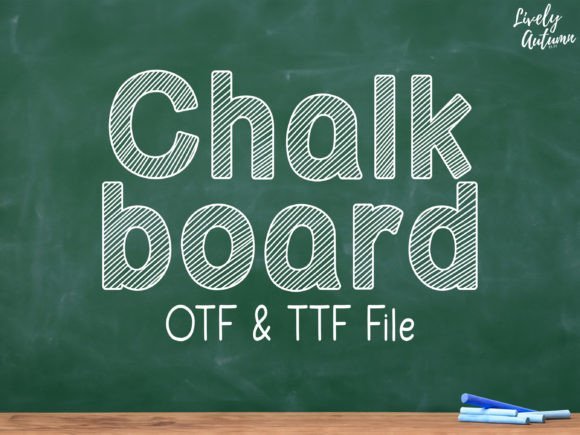
The Chalkboard Font: Bringing a Touch of Whimsy to Your Designs
Do you remember the feeling of holding a piece of chalk, feeling the cool breeze on your hand as you scribbled notes on the blackboard? The sound of the chalk scraping against the board, the smell of the dust… It’s a sensory experience that’s hard to forget. And for designers, that nostalgic feeling is exactly what Chalkboard Font brings to the table.
Chalkboard Font is a display font that’s designed to resemble the handwritten notes of a bygone era. With its sketch lines and imperfect edges, it’s the perfect addition to any school-themed project, or any design that needs a touch of whimsy. Whether you’re creating invitations, posters, social media graphics, or journals, Chalkboard Font is a valuable tool in your design arsenal.
Chalkboard Font Key Features
- Font Family: Chalkboard comes in two font families – Chalkboard and Chalkboard SE (Script Edition). Chalkboard is a sans-serif font, while Chalkboard SE is a script font.
- Unique Characteristics: Chalkboard font has a distressed, hand-drawn look, giving it a unique and rustic feel. It is ideal for creating a vintage or retro atmosphere in designs.
Designer Review: Chalkboard Font
Chalkboard Font is a popular, hand-drawn font that has been widely used in various designs, from invitations to signage. When used correctly, it can be a real showstopper. ✨ Here are some things that work well with this font:
- Unique aesthetic: Chalkboard Font has a distinct, hand-drawn look that can add a touch of whimsy and personality to your design.
- High legibility: Despite its informal appearance, Chalkboard Font is surprisingly easy to read, making it suitable for a wide range of applications.
- Customization options: Many font creators offer customization options, allowing you to adjust the size, color, and style of the font to fit your design needs.
However, there are also some limitations to consider. ⚠️ Here are a few:
- Limited versatility: While Chalkboard Font is great for informal, playful designs, it may not be the best choice for more formal or professional projects.
- Lack of consistency: Due to its hand-drawn nature, Chalkboard Font can appear inconsistent or uneven in certain applications.
Overall, Chalkboard Font is a fun and creative option for designers looking to add a touch of personality to their work. While it may not be suitable for every project, it can be a great choice for the right application.
Use Chalkboard Font for:
- Creating a distressed or worn look for your designs
- Adding a vintage or retro feel to your text